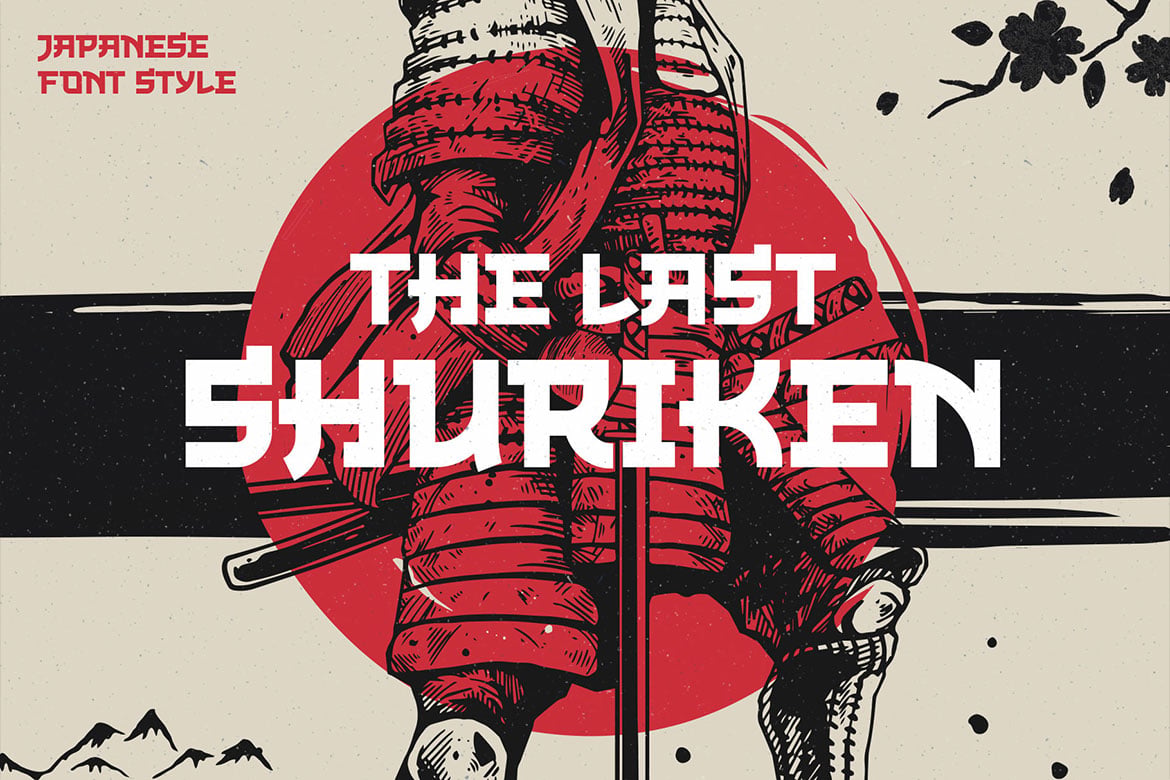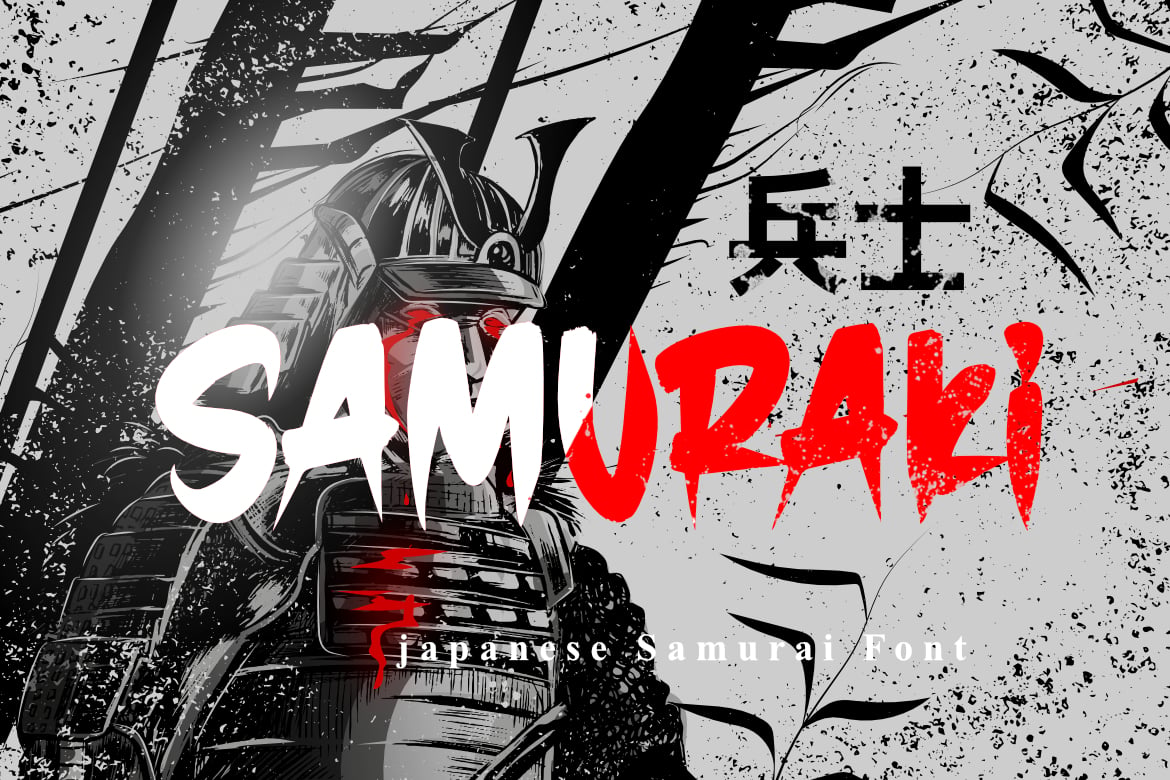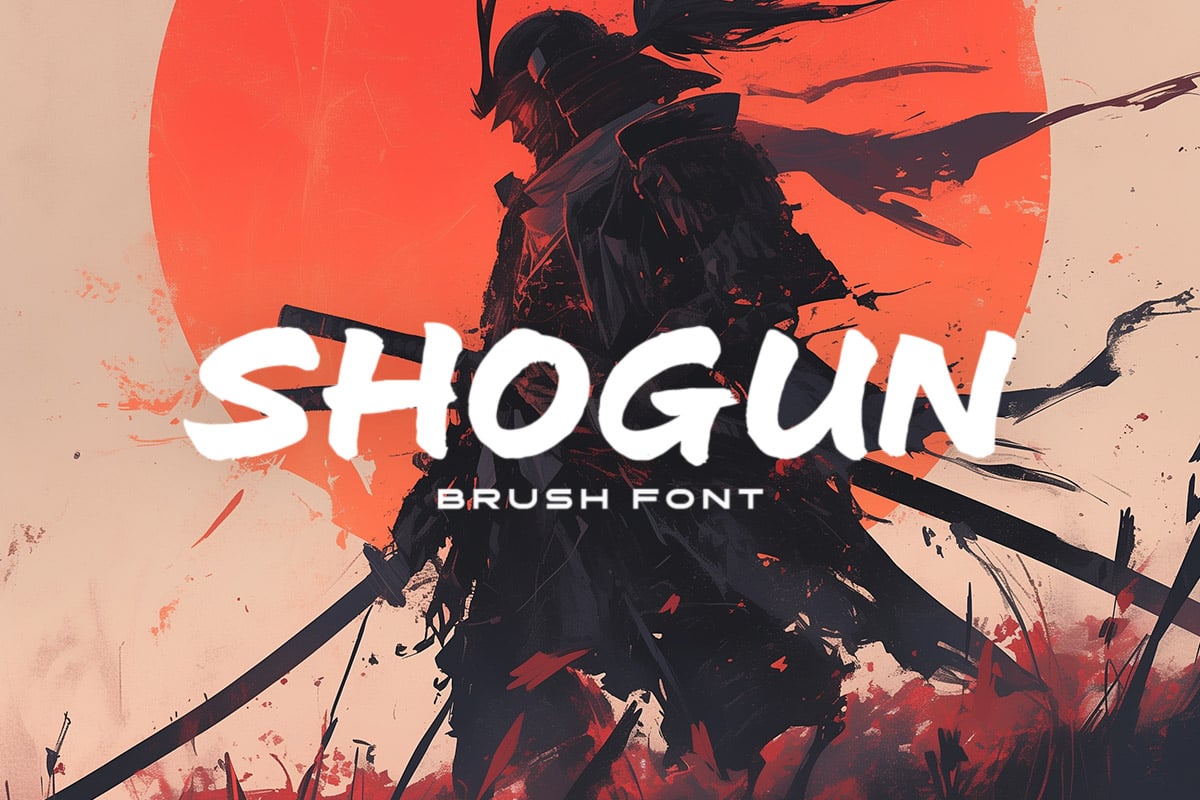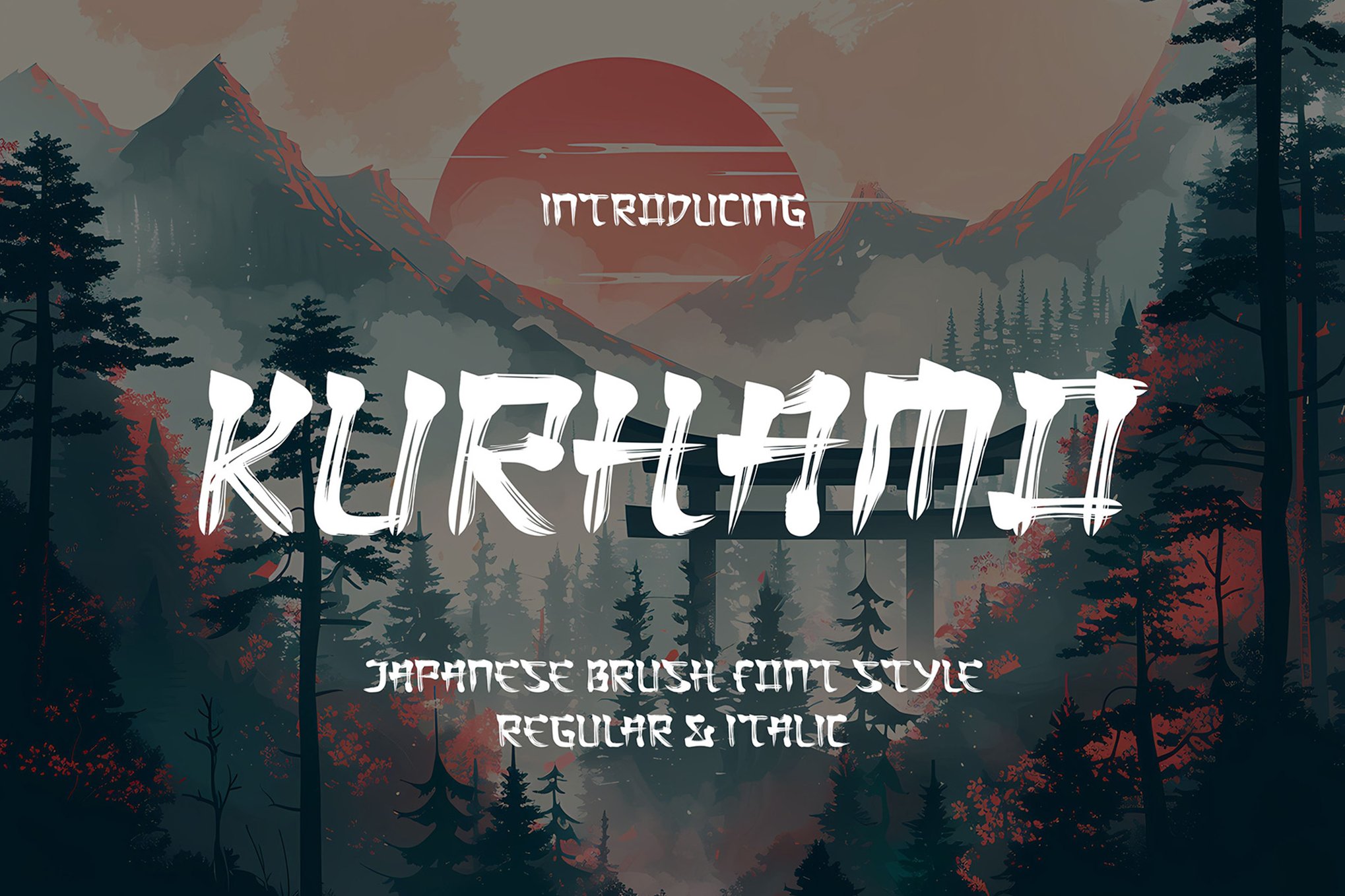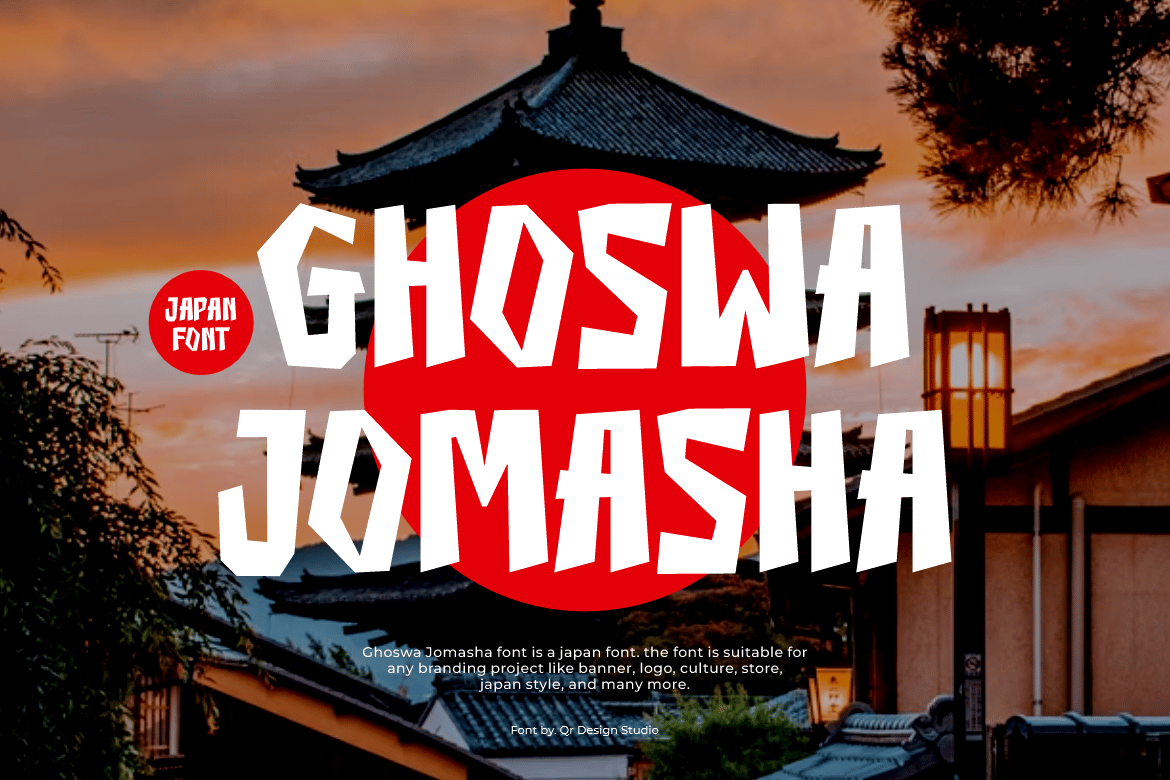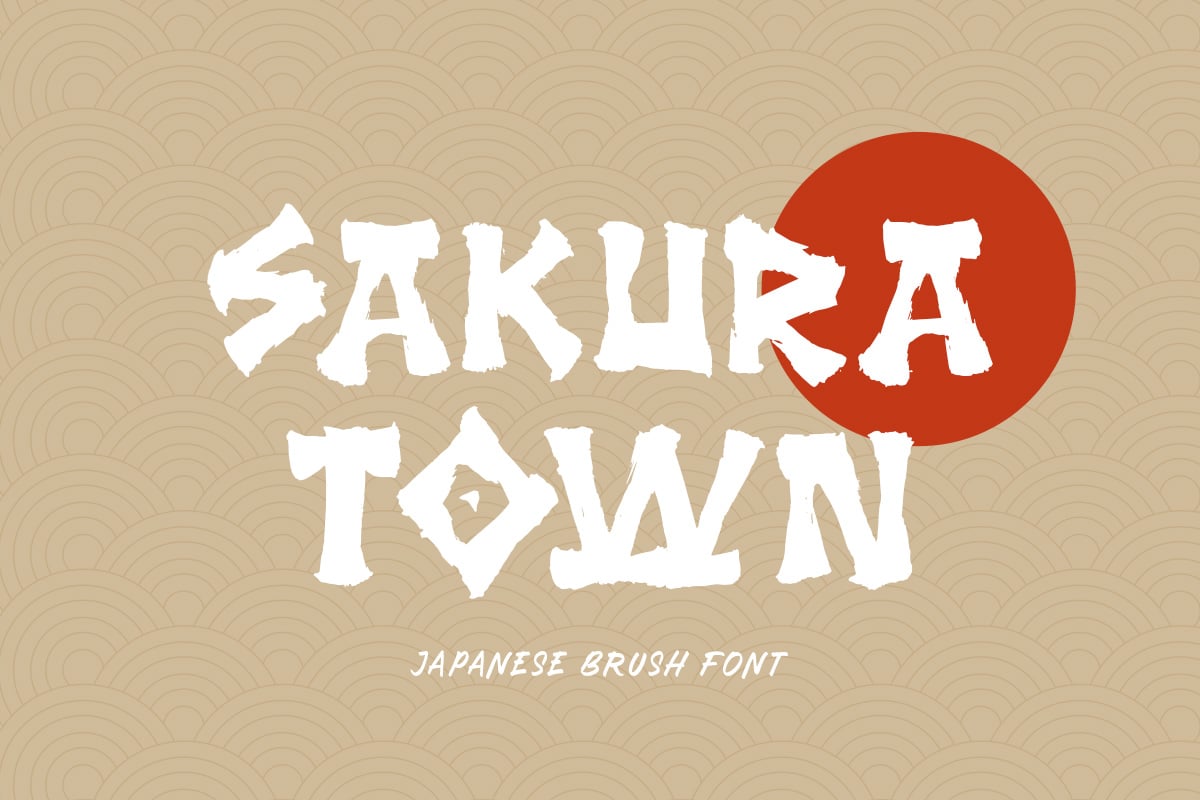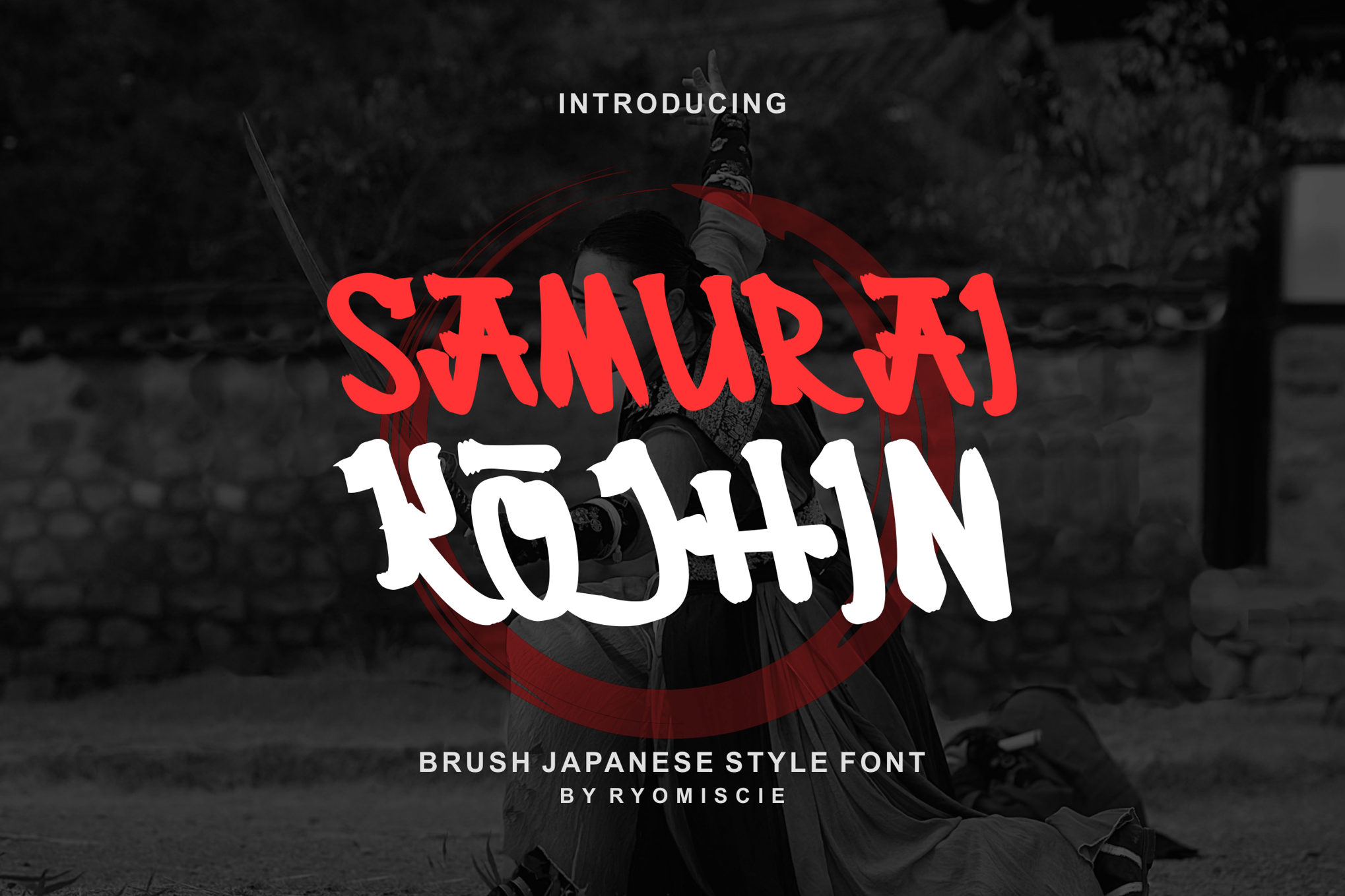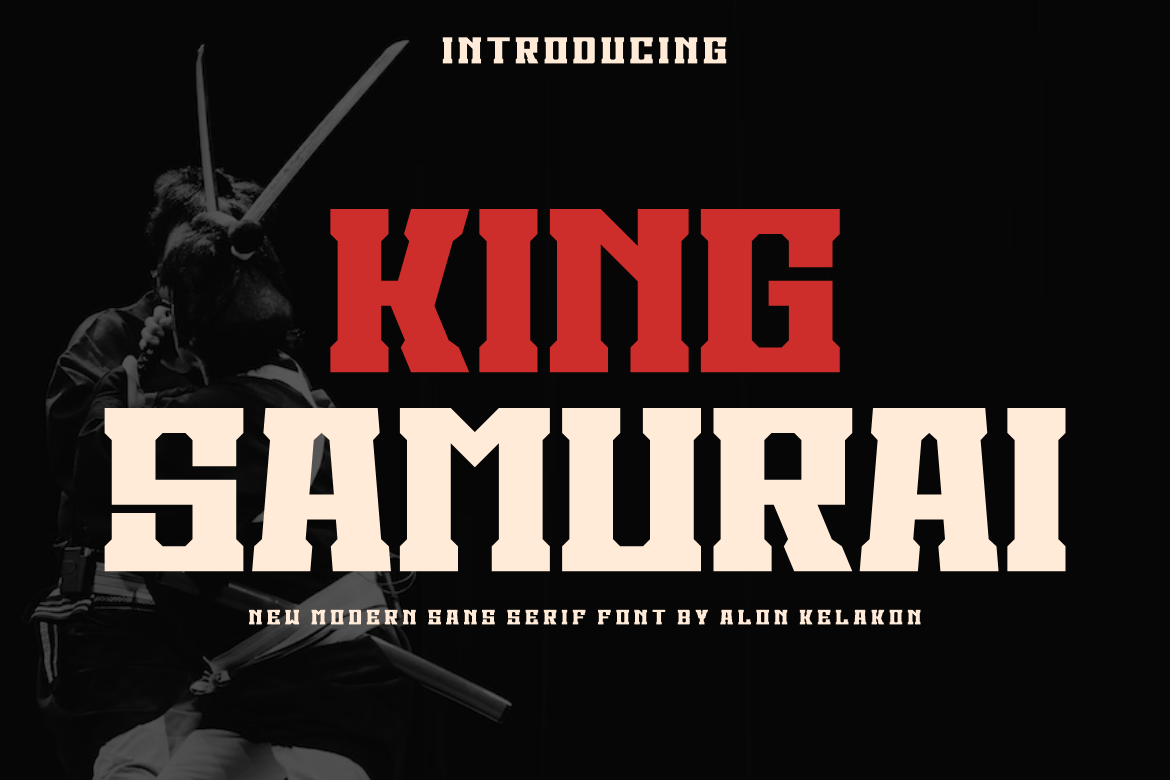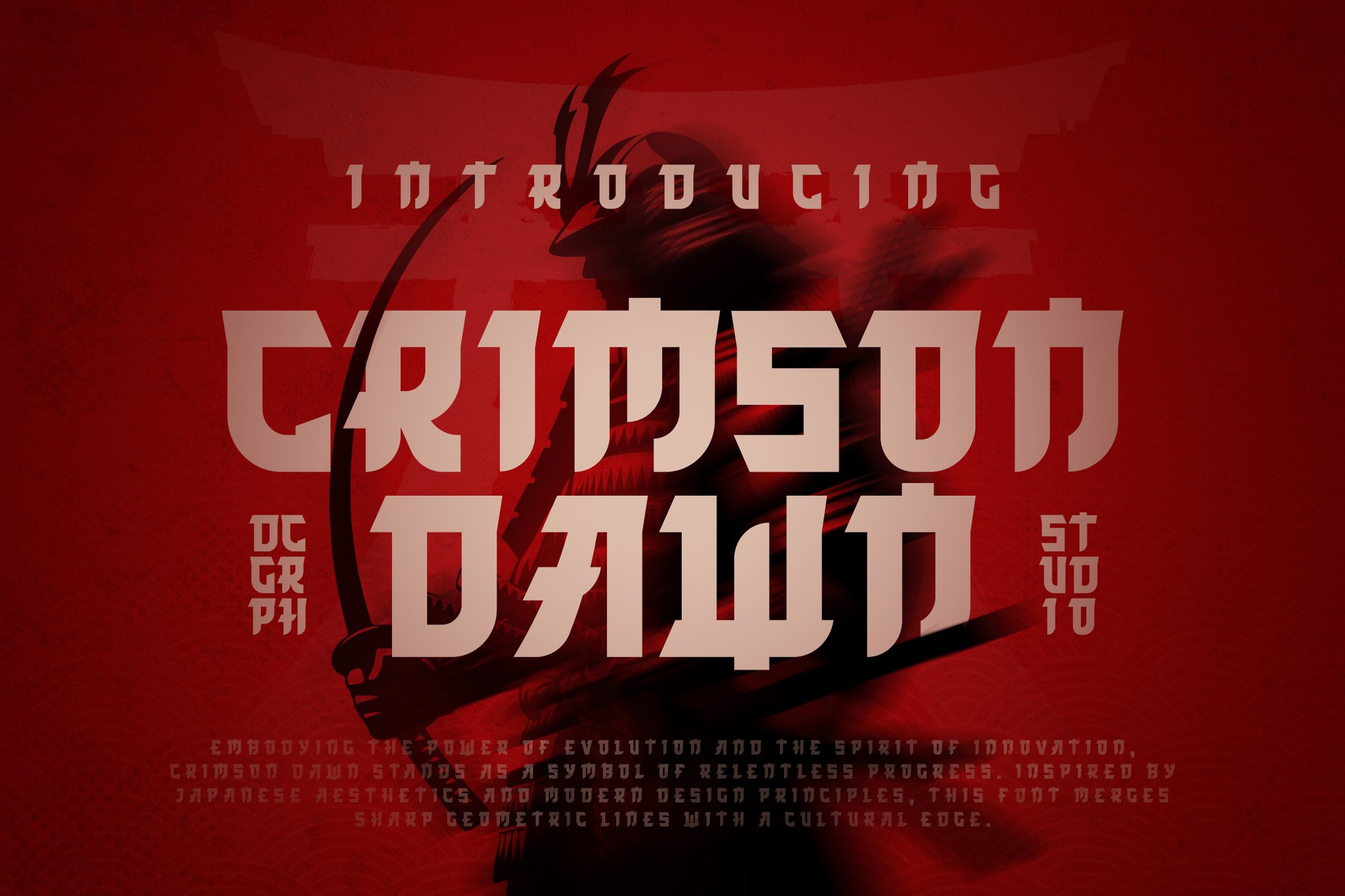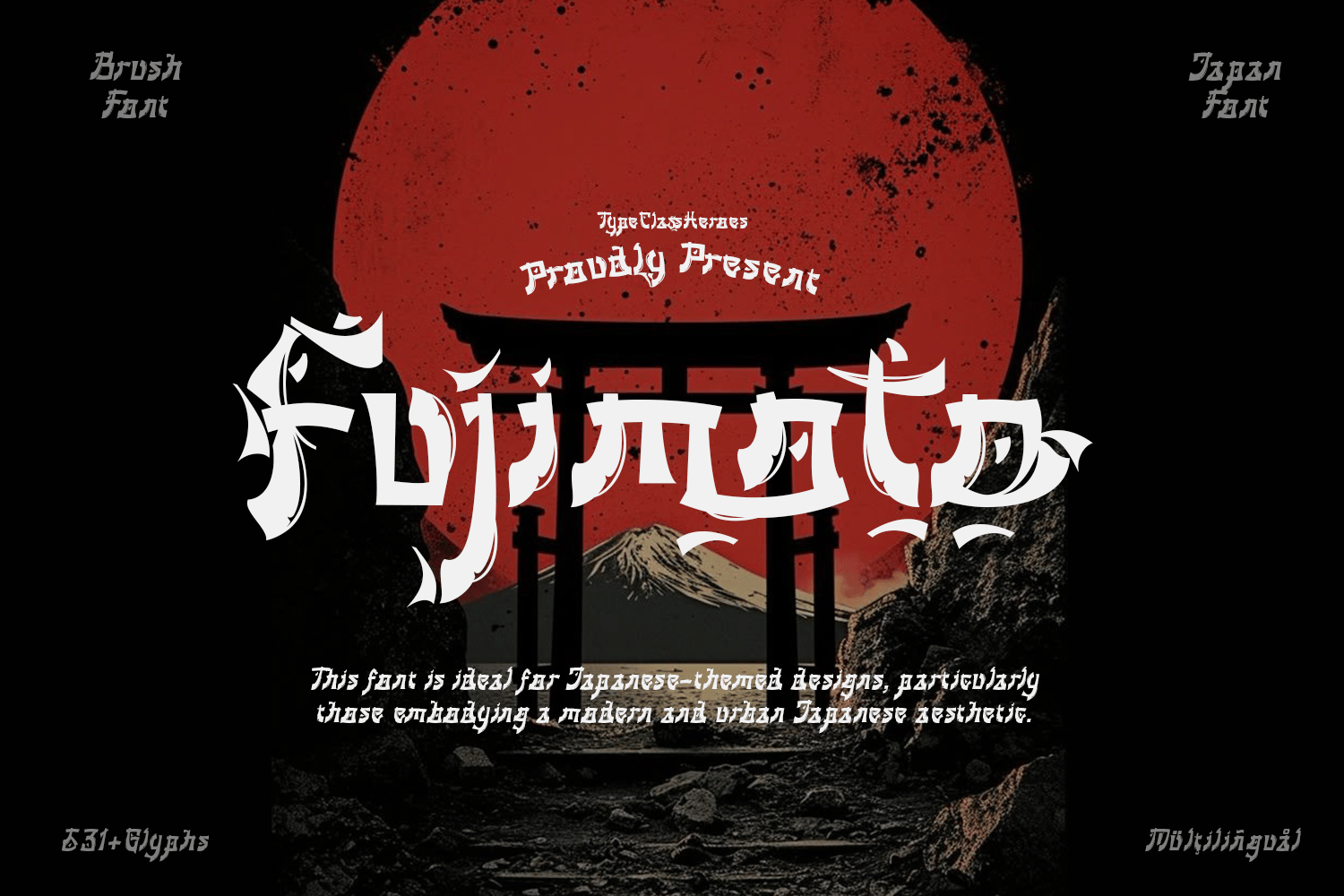
20+ Cool Samurai Fonts for Japanese Warrior Designs
Few typography styles feel as bold and cinematic as samurai-inspired fonts.
These fonts blend traditional Japanese aesthetics with aggressive brush strokes, sharp letterforms, and handcrafted textures to create designs that feel powerful and atmospheric.
Brush-style samurai fonts are especially popular because they capture the raw energy of hand-painted ink lettering. Rough edges, flowing strokes, and textured details help create typography that feels authentic and expressive.
In this collection, you’ll find some of the best samurai fonts for Japanese warrior designs.
These typefaces are perfect for creating powerful logos, cinematic titles, and artwork inspired by feudal Japan and warrior culture.
The Last Shuriken – Japanese Samurai Font
Last Shuriken is a dynamic all-caps Japanese-themed font drawing inspiration from modern Japanese food branding and anime. This bold typeface features uniform cap height with unique character shapes, perfect for logos, posters, and more. With stylistic alternates and multilingual support, it’s an ideal choice for captivating titles and designs.
Samuraki – Japanese Samurai Font
Explore the world of traditional Japanese warriors with Samuraki, a Samurai-themed font perfect for adding an authentic touch to your projects. Ideal for flyers, quotes, posters, and more, this premium font supports uppercase, lowercase, numbers, punctuation, and offers multilingual options. Available in OTF, TTF, and WOFF formats.
Shogun – Samurai Brush Font
Shogun is a distinctive, wide brush font inspired by the elegance and strength of samurai culture. Ideal for projects needing a bold, artistic flair, this font brings a touch of Eastern sophistication. Available in both OTF and WOFF formats, it’s versatile for various design needs.
Kurhamo – Japanese Style Brush Font
Kurhamo is a Japanese-style brush font that infuses your designs with the elegance of traditional calligraphy. Available in Regular and Italic styles, it showcases fluid, graceful letterforms perfect for projects craving cultural sophistication. Ideal for logos, posters, and more, Kurhamo offers a visually striking, refined aesthetic that resonates with Japanese artistry.
Ghoswa Jomasha – Samurai Font
Ghoswa Jomasha is a captivating Japanese-themed display font ideal for enhancing branding projects like posters and logos. Its authentic design stands out across various contexts, offering a unique touch to your work. The font package includes multiple formats: OTF, TTF, and WOFF, ensuring versatility and ease of use.
Sakura Town – Samurai Style Brush Font
Sakura Town is a dynamic and versatile display typeface inspired by Japanese brush strokes. It’s ideal for various design projects, including logos, invitations, and packaging. This font offers uppercase and lowercase letters, numbers, punctuation, and multilingual support. For the best experience, use software that supports OpenType features, ensuring access to all its creative glyphs.
Samurai Kojhin – Brush Japanese Font
Samurai Kojhin offers a bold and authentic style inspired by samurai themes, perfect for logos, esports, and diverse branding projects. This striking font supports various formats like OTF, TTF, and WOFF, featuring both uppercase and lowercase characters. Enhance the impact of your creative projects with this versatile and engaging display font.
King Samurai – Bold Modern Font
King Samurai is a bold and modern font designed to capture attention with its thick, powerful strokes. This samurai-themed sans serif font exudes authority and masculinity, making it ideal for headlines, logos, and posters. Perfect for those seeking a striking look, it combines the strength of traditional culture with a contemporary style. Available in OTF, TTF, and WOFF formats.
Crimson Dawn – Japanese Samurai Font
Crimson Dawn is a Samurai-inspired font, blending sharp geometry with Japanese cultural aesthetics. This bold display typeface exudes strength and discipline, making it ideal for posters, logos, gaming titles, and martial arts events. It includes TTF, OTF, and WOFF files with uppercase letters, numbers, and symbols, perfect for projects needing a powerful Asian-inspired touch.
Fujimoto – Unique Samurai Font
Fujimoto is a unique samurai-themed font that blends Latin display style with Japanese kanji influences. It features Mincho-style stroke contrast, dynamic hane and uroko tips, and a square grid for a bold yet flowing look. Perfect for modern Japanese designs, Fujimoto includes uppercase, lowercase, numbers, symbols, international glyphs, alternatives, and ligatures.
Kurozen – Japanese Style Samurai Font
Kurozen is a dynamic typeface that blends sharp, bold strokes with a touch of traditional eastern aesthetics. Ideal for projects that demand intensity and cultural depth, its striking presence suits logos, posters, and headlines. With features like alternates and ligatures, it enhances creative designs while supporting diverse themes like gaming and Japanese-inspired storytelling.